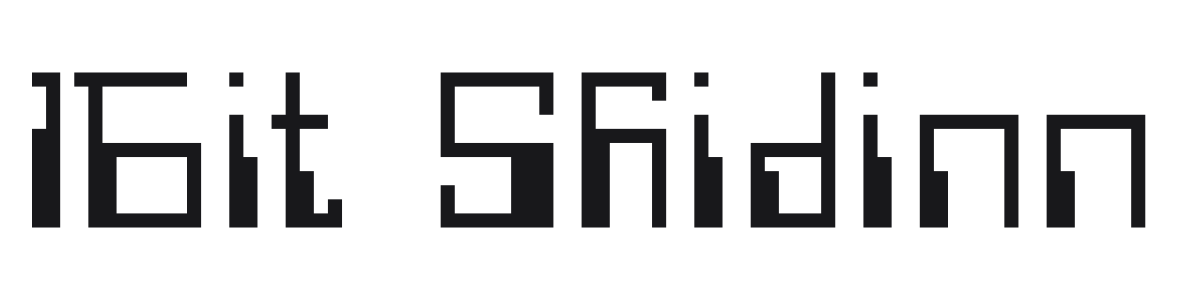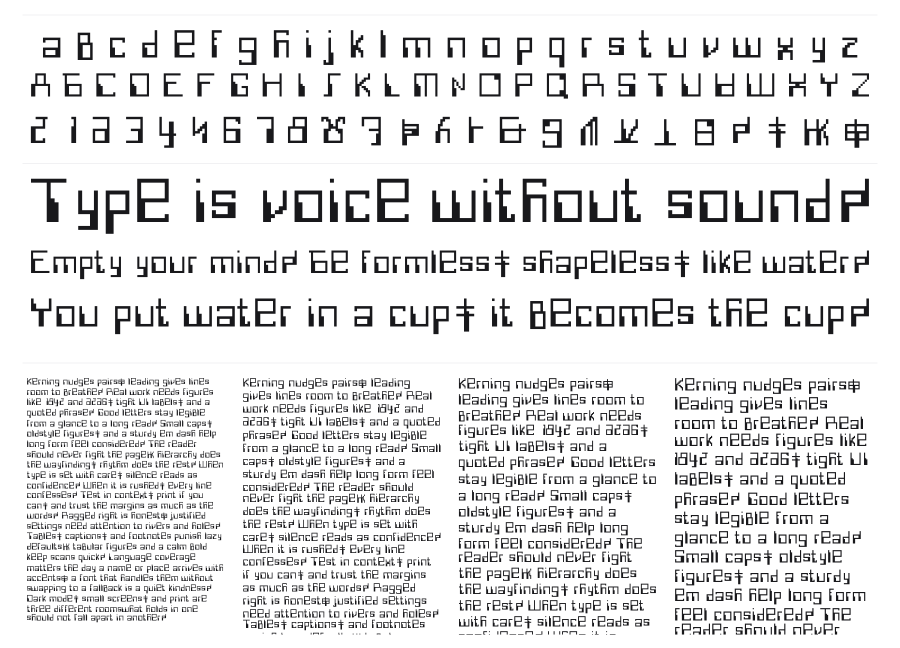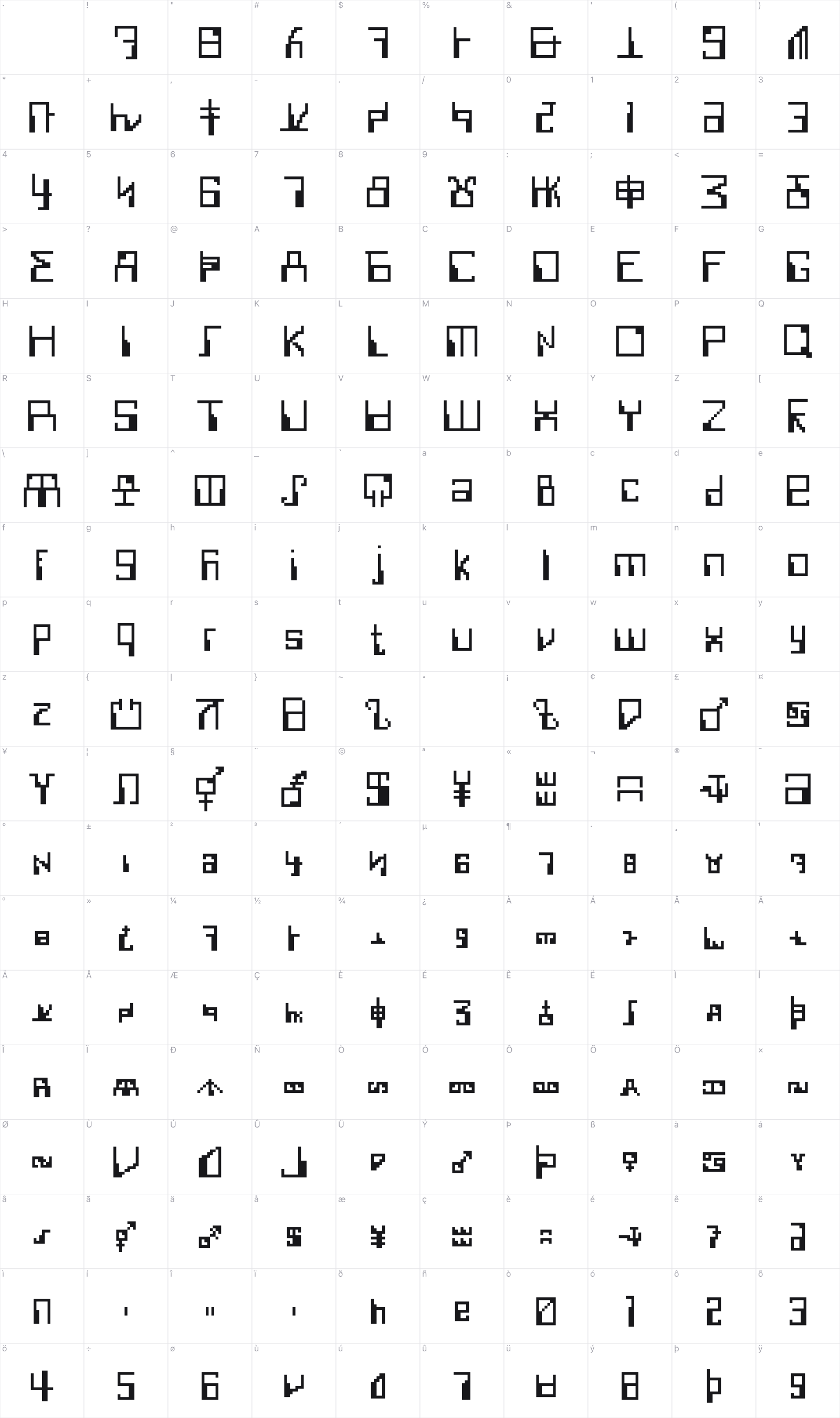
1Bit Shidinn
1Bit ShidinnFont is a chunky pixel-grid display font built entirely from square bitmap units. Every character is constructed on a strict grid with hard right-angle corners, giving it an unmistakable 8-bit retro-computing character. The unconventional mixed-case forms add a layer of quirky personality that sets it apart from generic pixel typefaces.